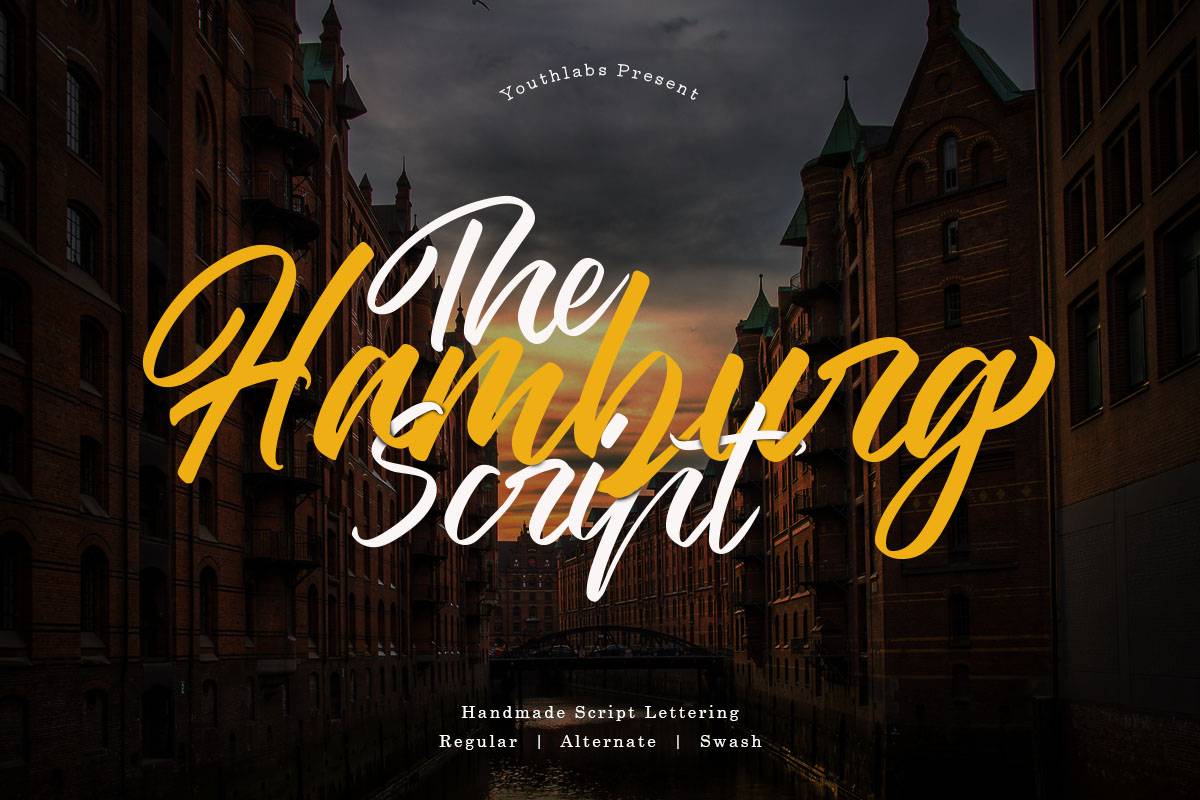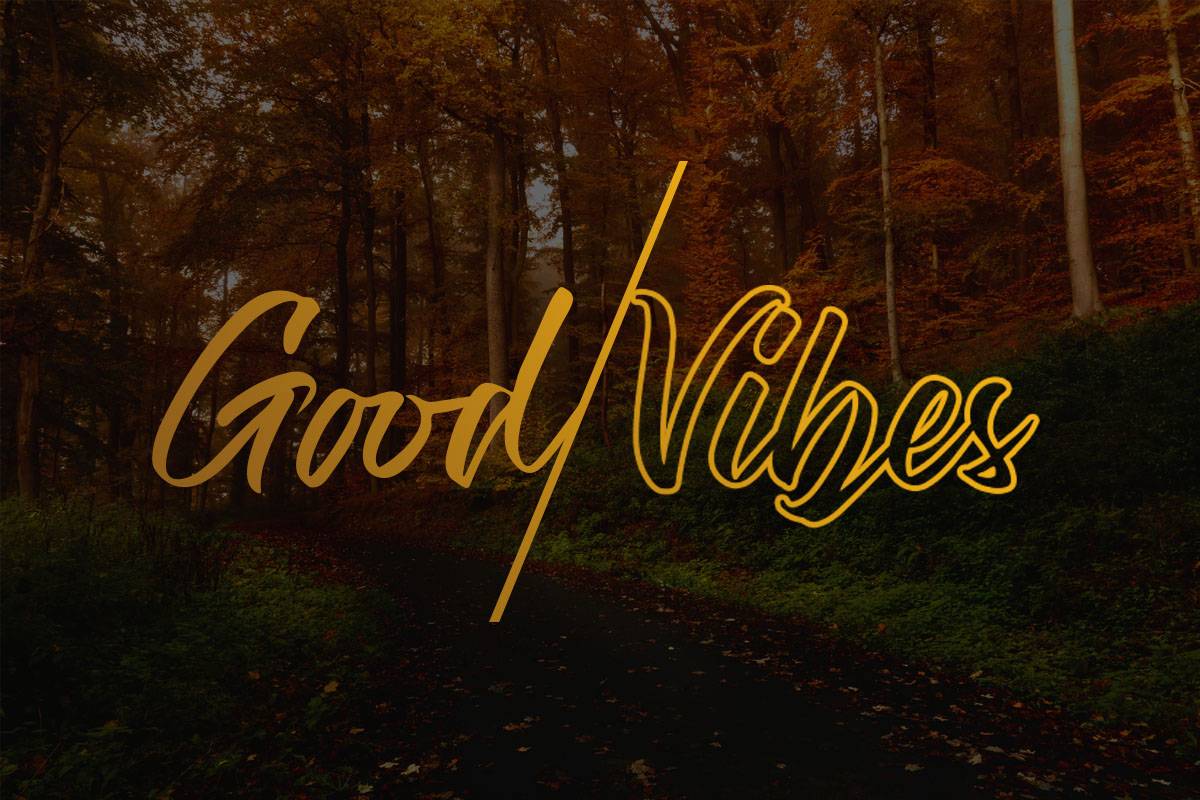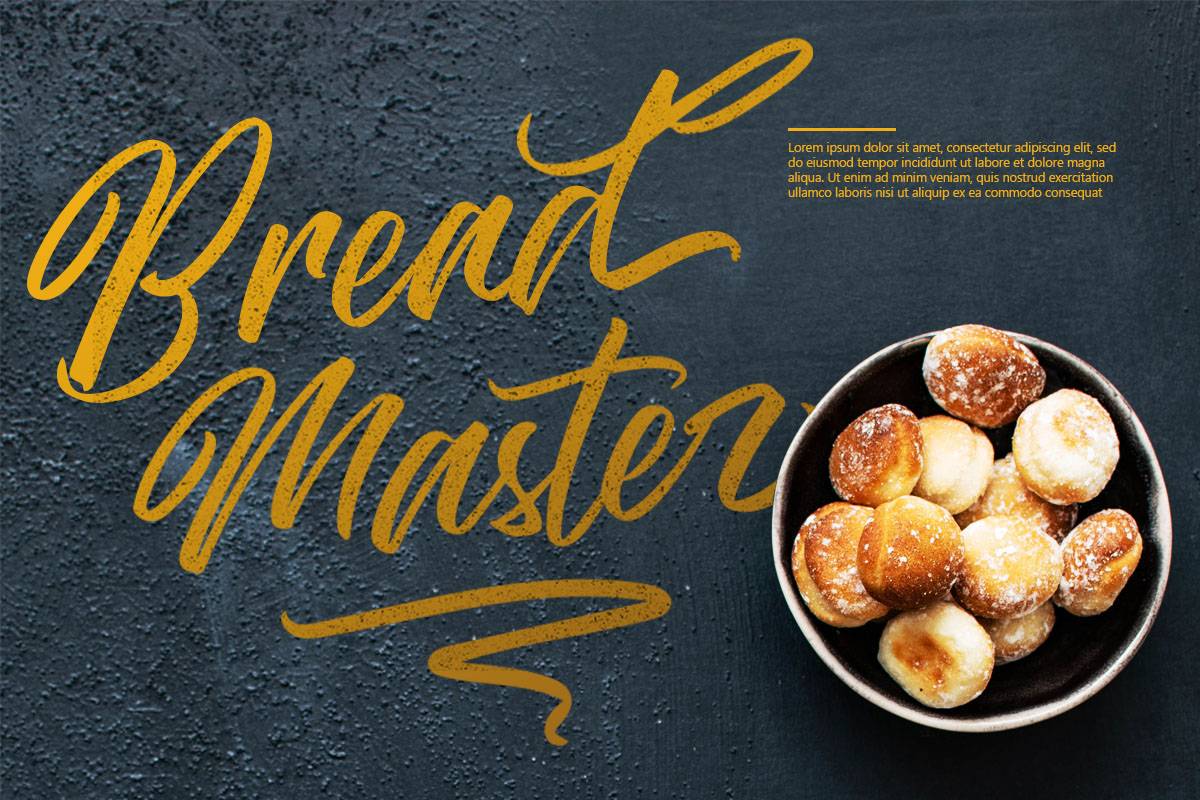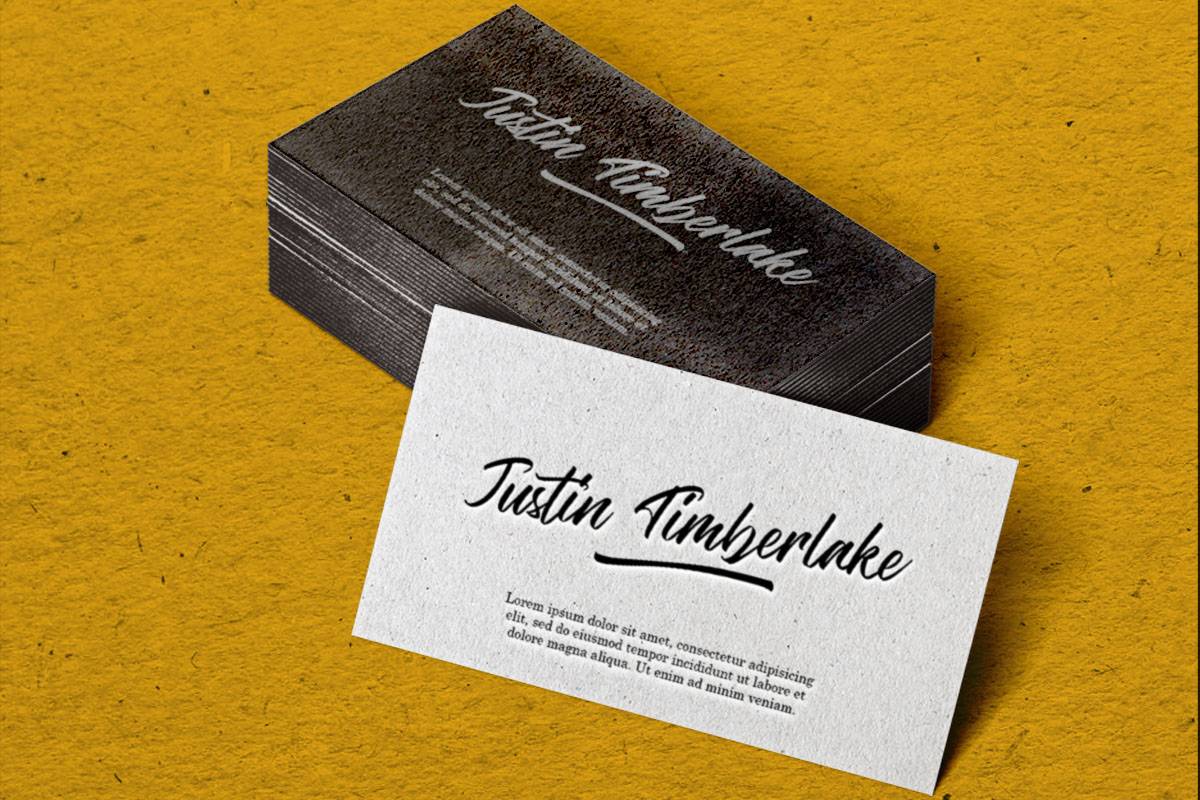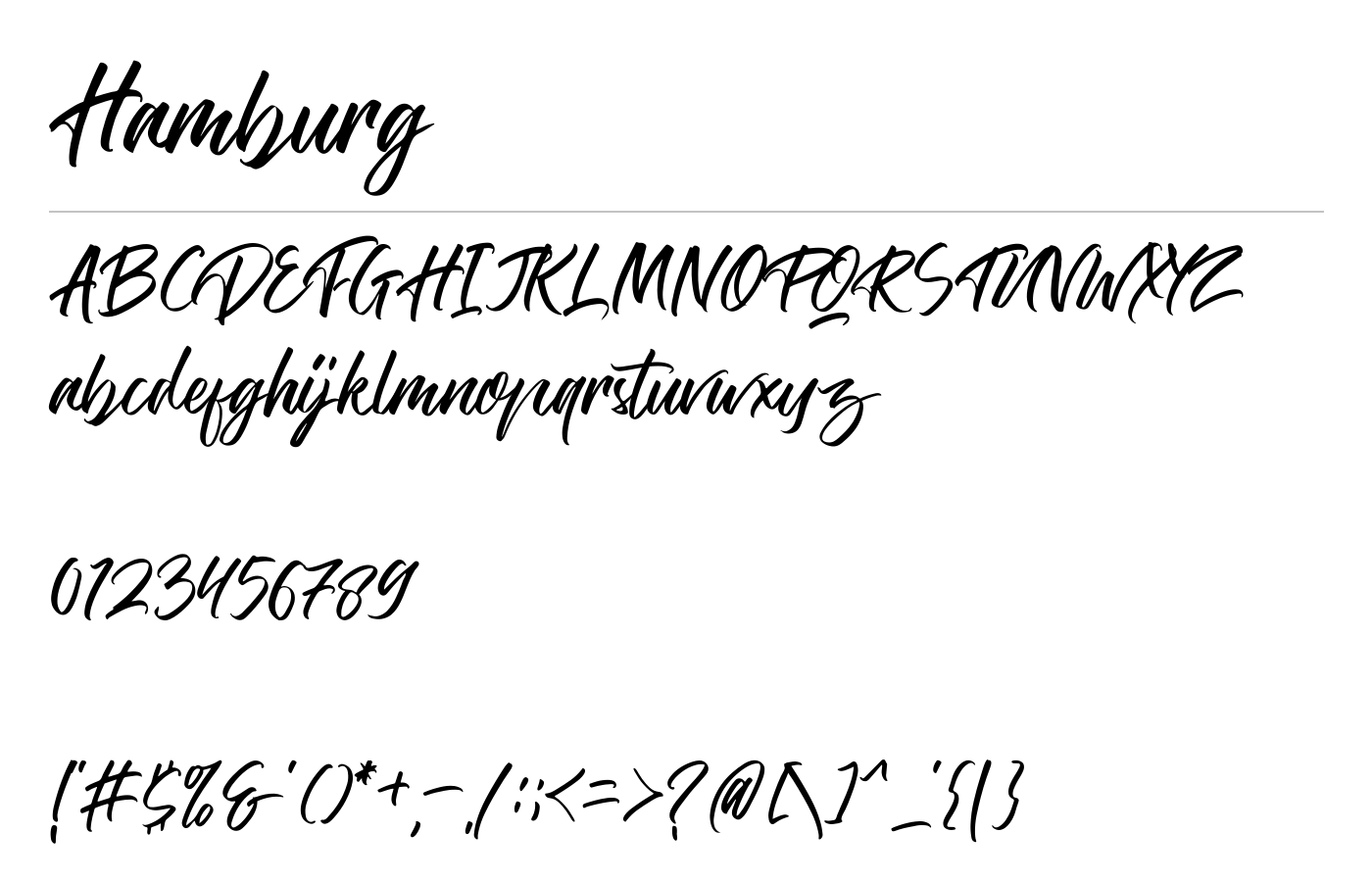
The Hamburg Font is a lively and elegant script typeface characterized by its fluid, brush-like strokes and natural, hand-drawn feel. With its medium weight and dynamic letterforms featuring a mix of sharp and smooth curves, it conveys a modern yet personal touch, ideal for creative branding, invitations, and stylish headlines. This font works beautifully where a sense of individuality and artistic flair is desired, making it perfect for fashion, lifestyle, and artistic projects.
The Hamburg Font
About The Hamburg Font
| Font family | The Hamburg Font |
| Designer | Muhammad Fathi Al Ghazi |